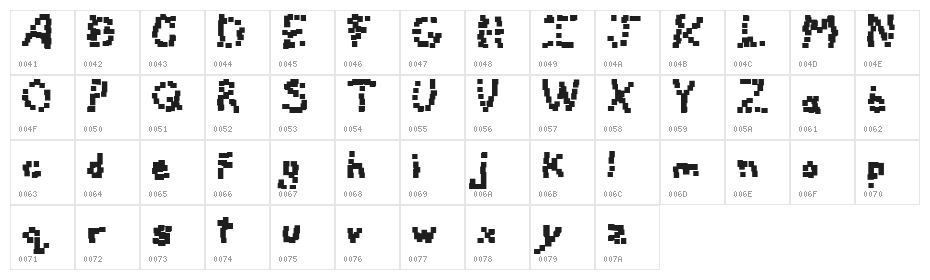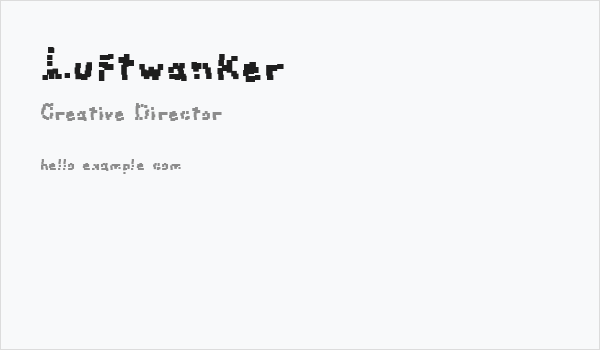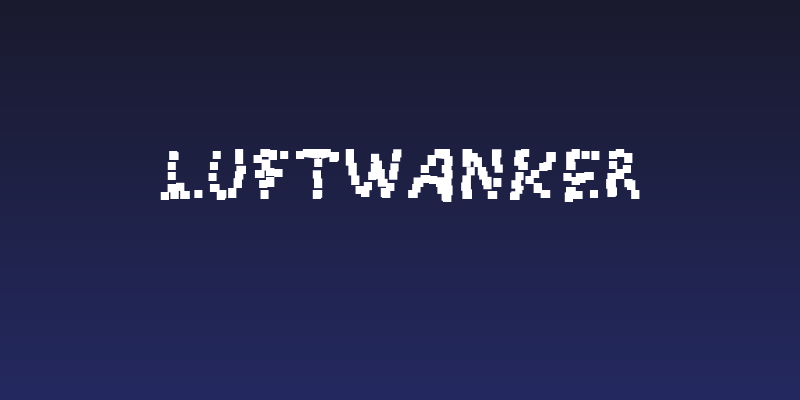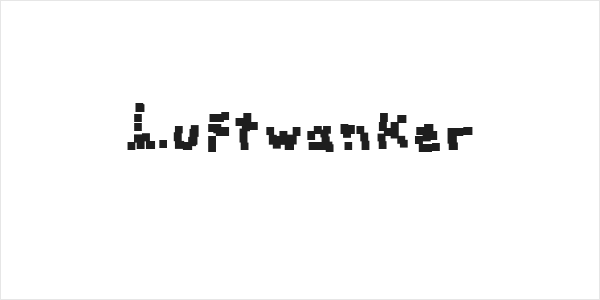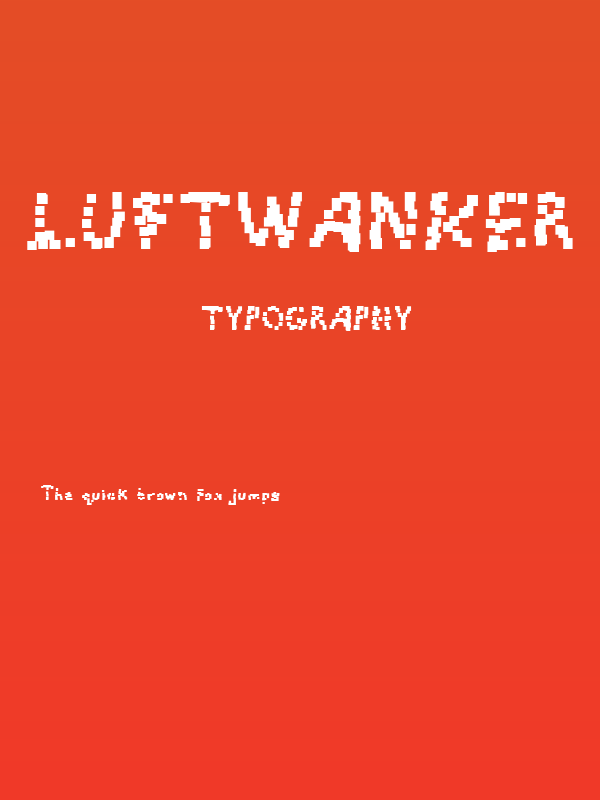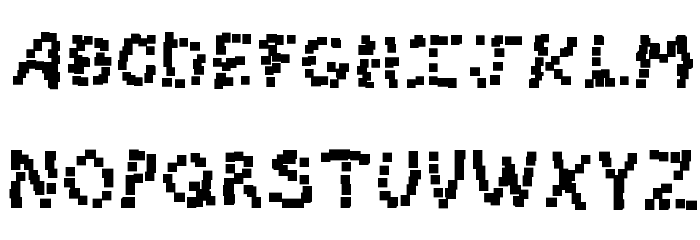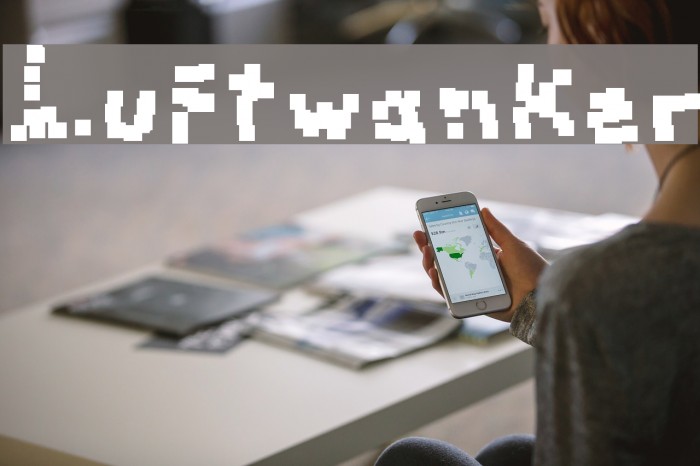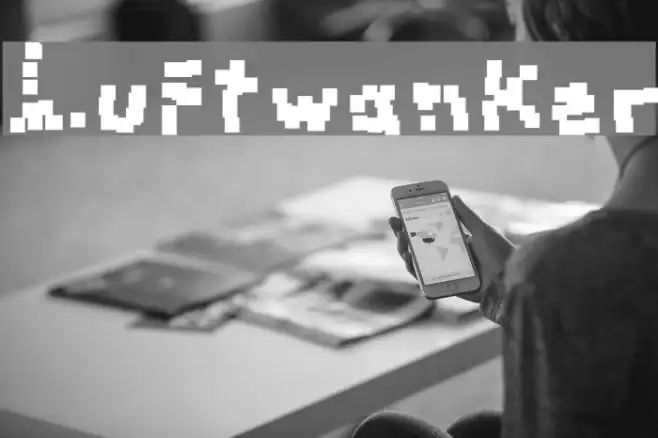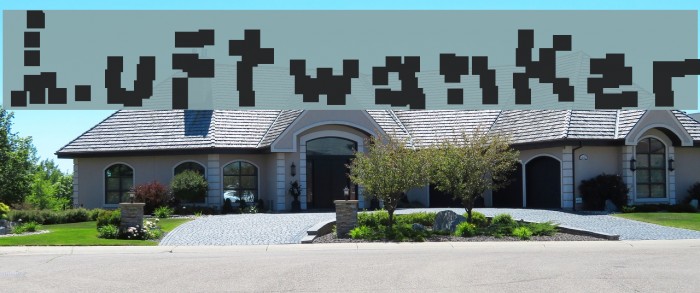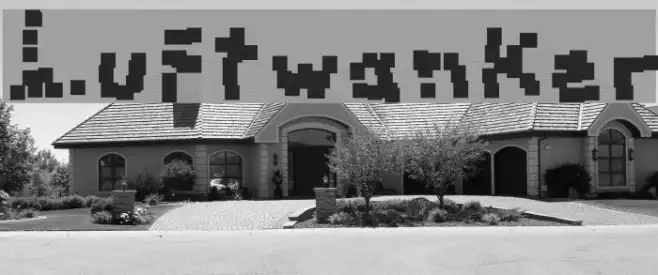
Luftwanker Font
Luftwanker Description
This font features a pixelated, blocky design reminiscent of early digital displays or retro video games. Each character is constructed with a series of square blocks, giving it a distinctly digital and geometric appearance. The uppercase and lowercase letters maintain a consistent style, with the uppercase being slightly larger and more pronounced. Numbers and special characters follow the same pixelated pattern, ensuring uniformity across all glyphs. The font's unique style makes it stand out, ideal for projects that require a nostalgic or tech-inspired aesthetic.
LUFTWANKER UPPERCASE
LUFTWANKER LOWERCASE
LUFTWANKER OTHER CHARS
| Proposed Projects | Ideal for video game design, tech-themed posters, retro digital art, and any project seeking a nostalgic digital look. |